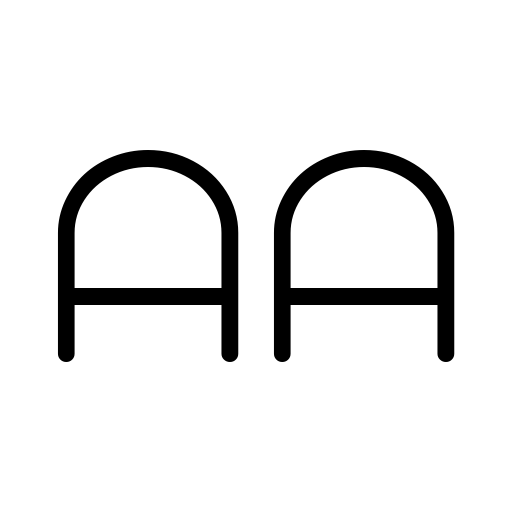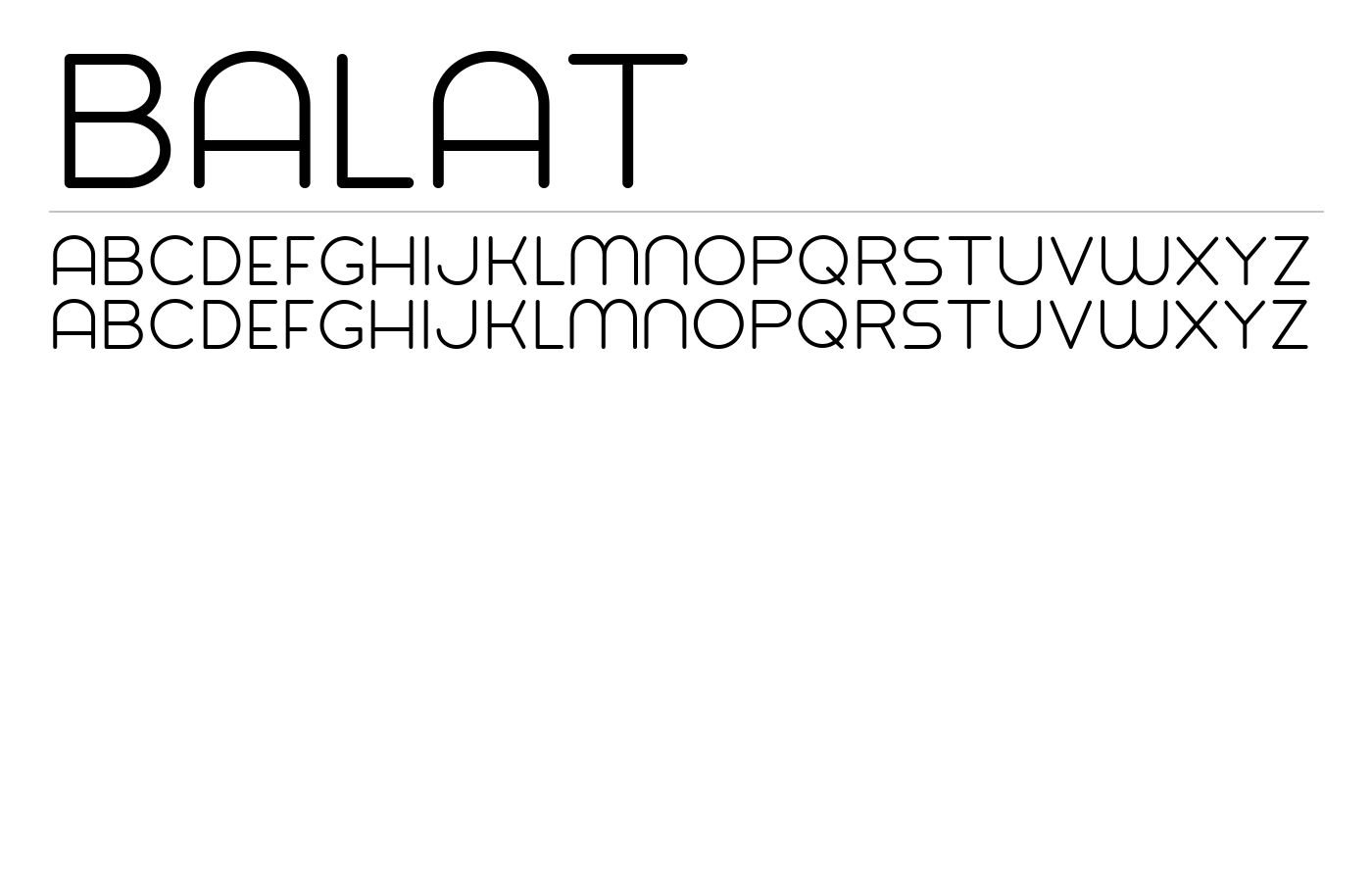
Balat is a sleek, modern sans serif font characterized by its clean, geometric lines and rounded terminals, giving it a friendly yet professional appearance. Its light weight and open letterforms create an airy, elegant feel that works well for contemporary branding, headlines, and digital interfaces seeking a minimalist and approachable style.
Balat Font